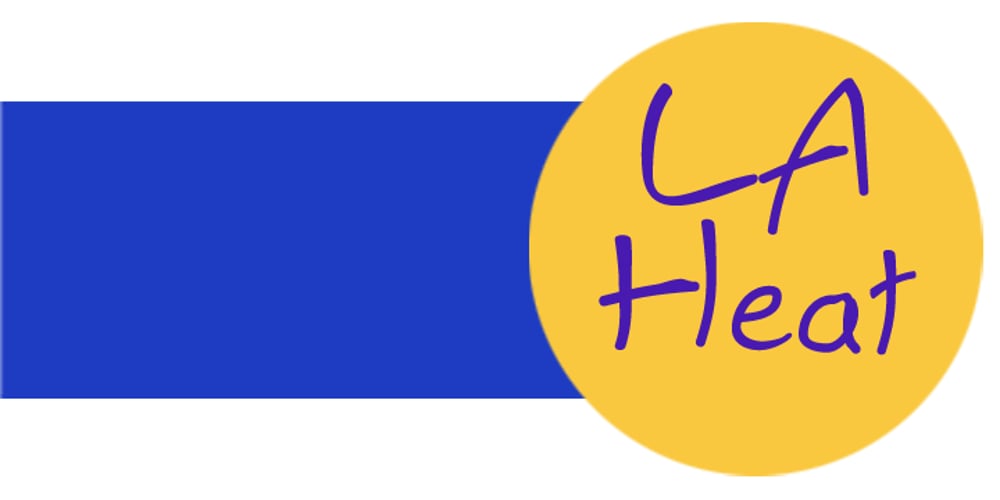
LA Heat
LA Heat font
LA Heat Font Family was designed by Rob Leuschke and published by TypeSETit. LA Heat contains 1 styles and family package options. It’s fun and funky.